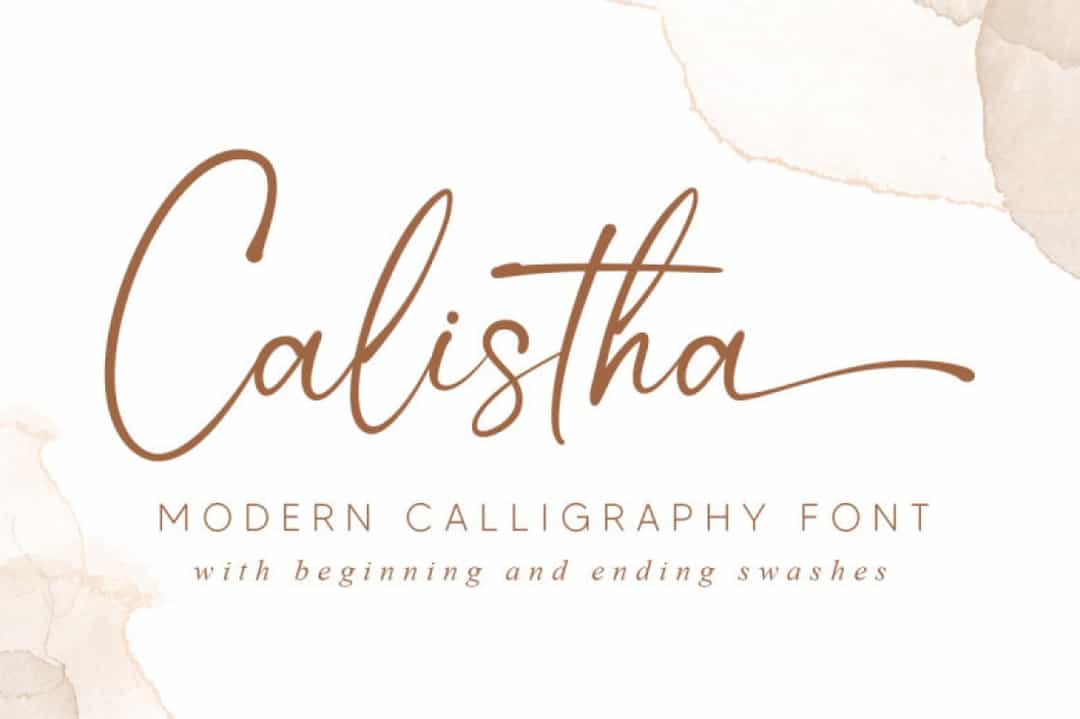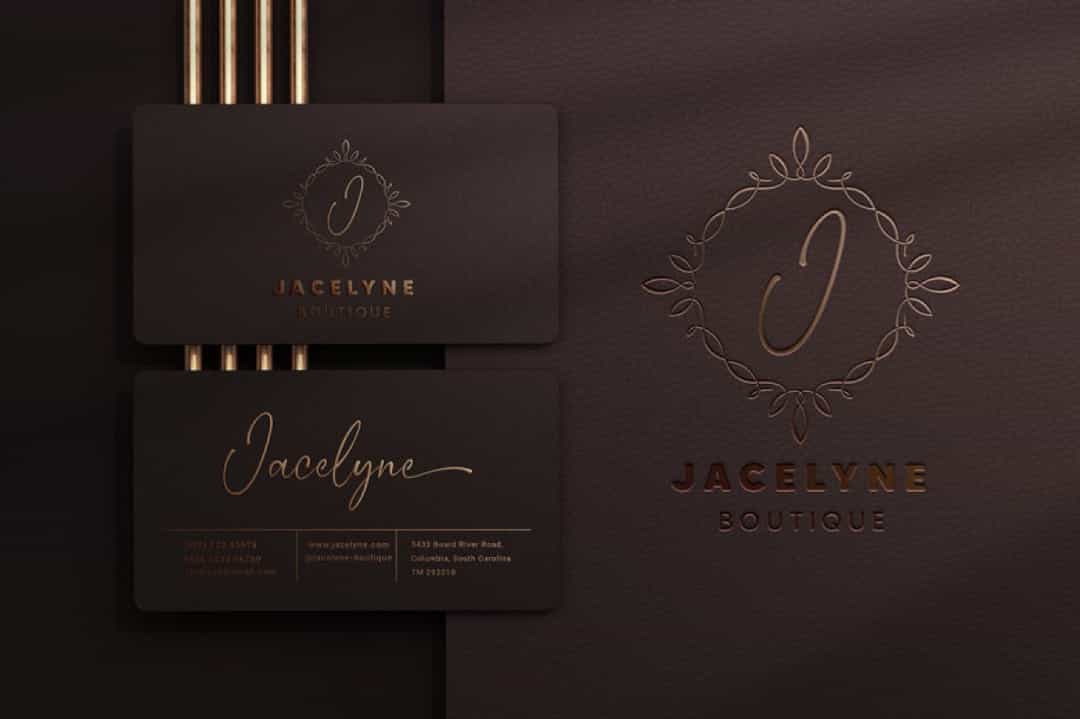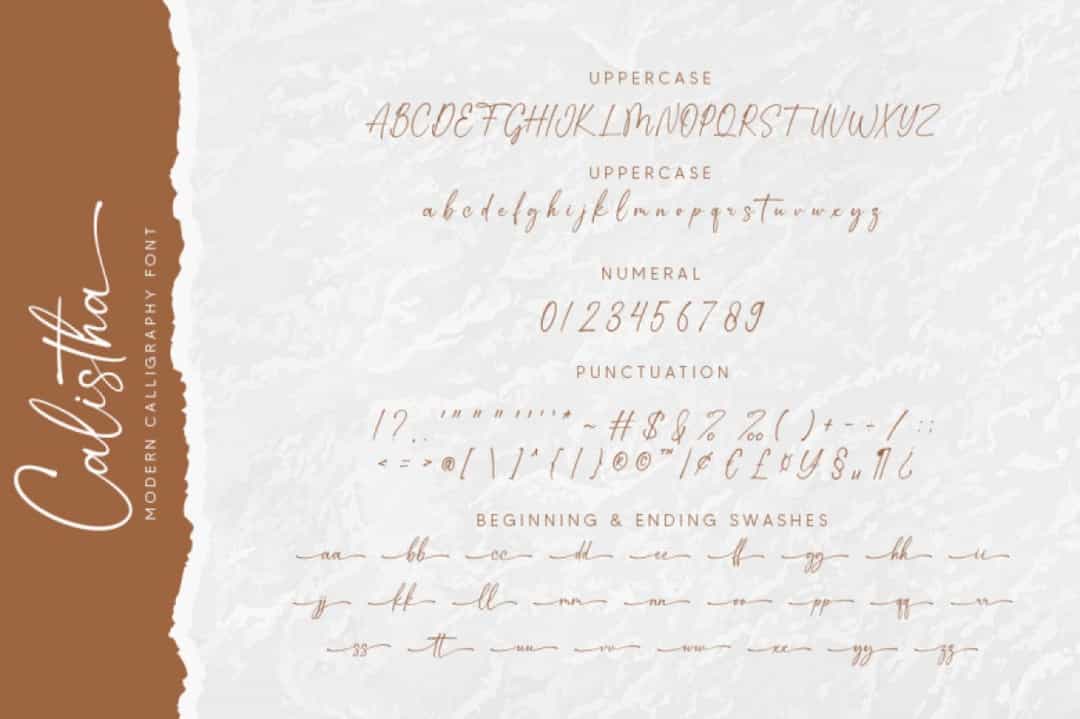
Calistha is an eye-catching Calligraphy script typeface, featuring beautiful letters with stunning, modern calligraphy style script. PUA encoded, its font can access all its glyphs and swashes easily allowing for unrivalled versatility in design! So be entranced by it as you use Calistha for beautiful designs!